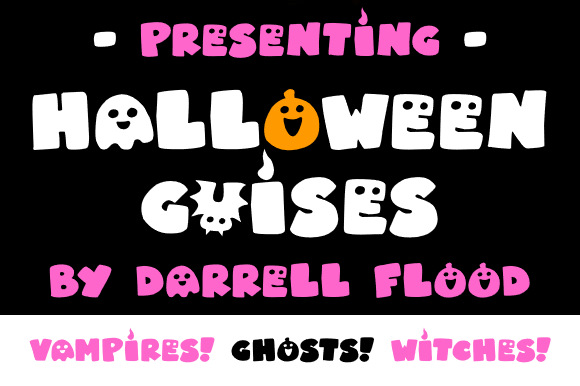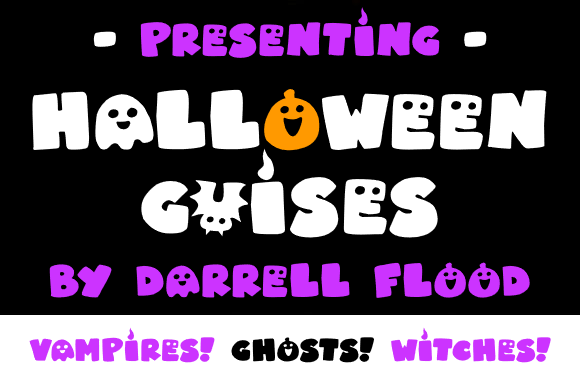
Halloween Guises Font: The Spookiest and Cutest Font for Your Halloween Needs
Are you looking for a font that will add a touch of spookiness and cuteness to your Halloween designs? Look no further than the Halloween Guises Font! This super cute spooky Halloween themed font is perfect for holiday parties, cards, decorations, and general family horror use. In this article, we’ll dive into the features and benefits of the Halloween Guises Font and explore how you can use it to create amazing designs.
What is Halloween Guises Font?
Halloween Guises Font is a unique and creative font that features neat little character images instead of vowels. This means that when you type out a word, the vowels are replaced with adorable and spooky images, giving your text a fun and playful twist. The font is designed to be easy to use and is compatible with most design software, making it perfect for designers and crafters of all levels.
Features of Halloween Guises Font
- Unique and Creative: The Halloween Guises Font is unlike any other font out there. The use of character images instead of vowels adds a fun and playful touch to your designs.
- Spooky and Cute: The font is designed to be both spooky and cute, making it perfect for Halloween designs that need to be both eerie and adorable.
- Perfect for Holiday Parties: The Halloween Guises Font is perfect for creating designs for holiday parties, including invitations, decorations, and more.
- Great for Cards and Decorations: The font is also great for creating Halloween cards and decorations, such as signs, banners, and garlands.
How to Use Halloween Guises Font
- Halloween Invitations: Create spooky and cute invitations for your Halloween party or event.
- Halloween Cards: Design adorable and eerie Halloween cards for friends and family.
- Halloween Decorations: Create signs, banners, and garlands to decorate your home or party space.
- Halloween Social Media Graphics: Use the font to create spooky and cute social media graphics to share with your friends and followers.
Tips and Tricks for Using Halloween Guises Font
Here are a few tips and tricks for getting the most out of the Halloween Guises Font:
- Experiment with Different Colors: The font looks great in a variety of colors, so don’t be afraid to experiment and find the perfect color scheme for your design.
- Mix and Match with Other Fonts: The Halloween Guises Font pairs well with other fonts, so try mixing and matching it with different fonts to create a unique look.
- Use it for Other Holidays: While the font is designed for Halloween, it could also be used for other holidays, such as Easter or Christmas, with a little creativity.
The Halloween Guises Font is a unique and creative font that is perfect for designers and crafters looking to add a touch of spookiness and cuteness to their Halloween designs. With its easy-to-use design and compatibility with most design software, it’s a great choice for anyone looking to create amazing Halloween designs. So why wait? Download the Halloween Guises Font today and start creating your own spooky and cute designs!